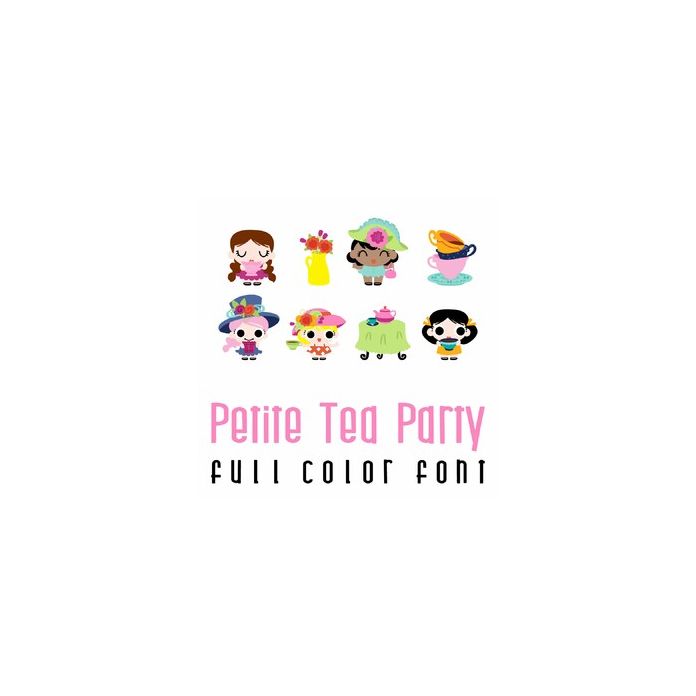
This adorable full-color doodlebat font features 26 cute tea party patrons, phrases, and kawaii-style tea items. Perfect for cards, crafts, gifts, parties, planner stickers, scrapbook pages, and more!